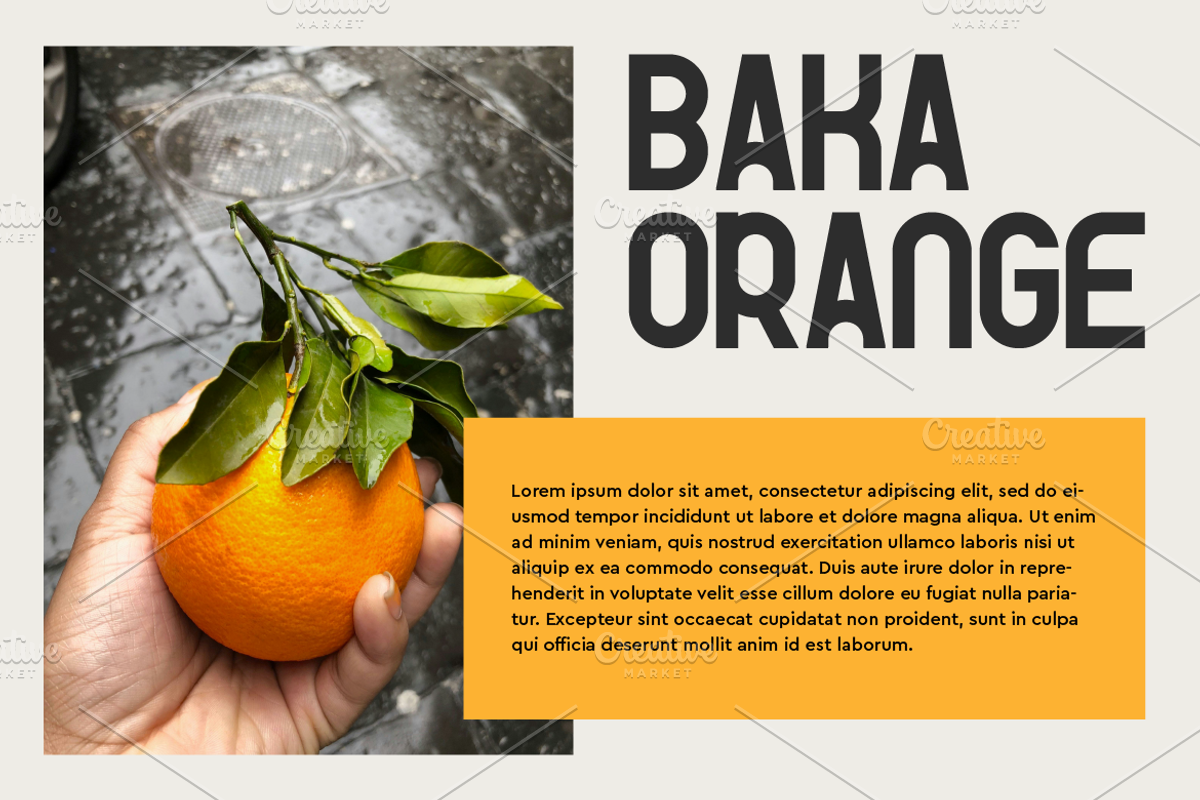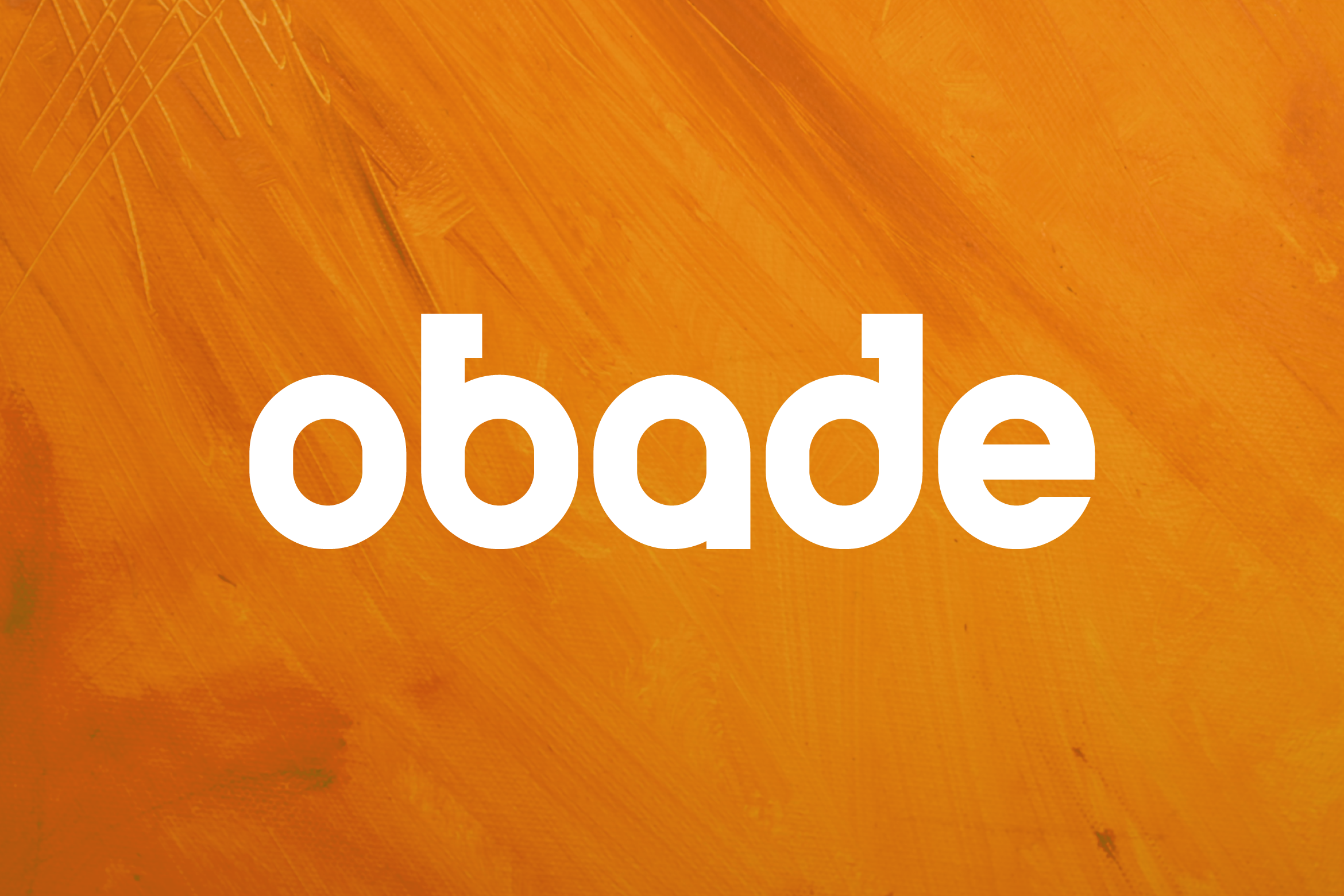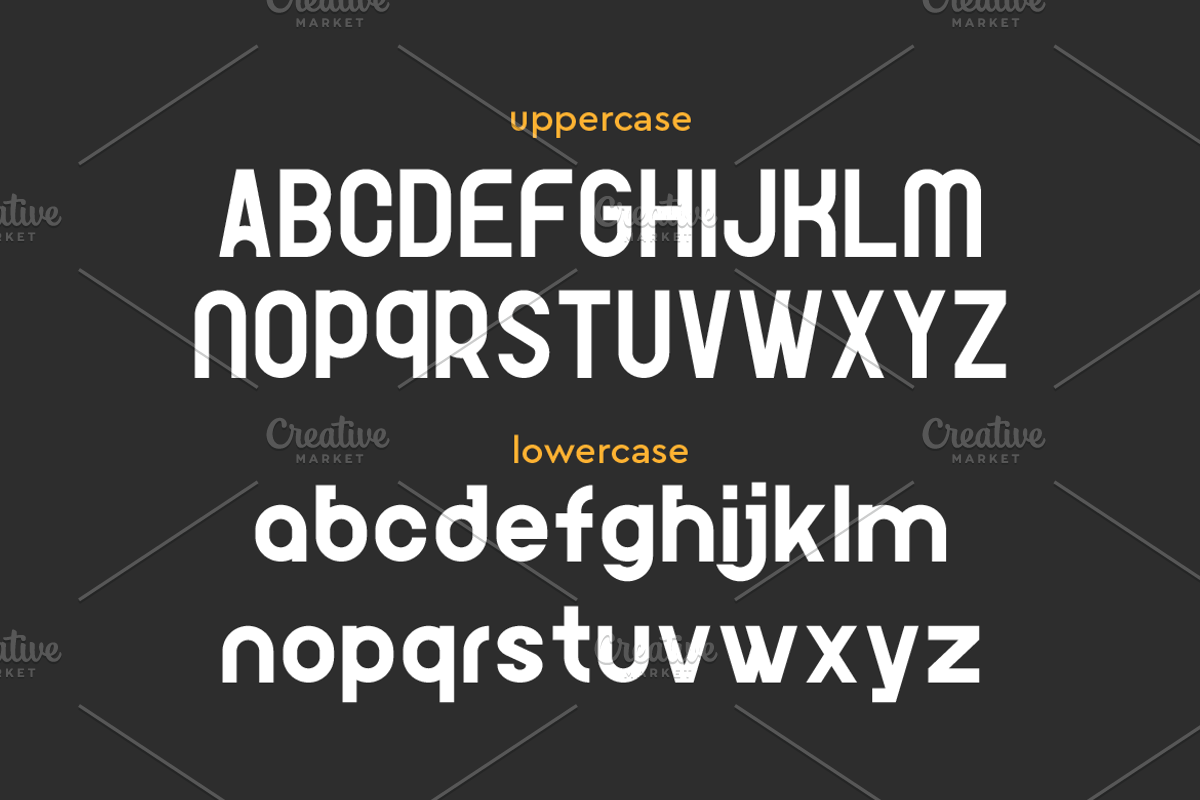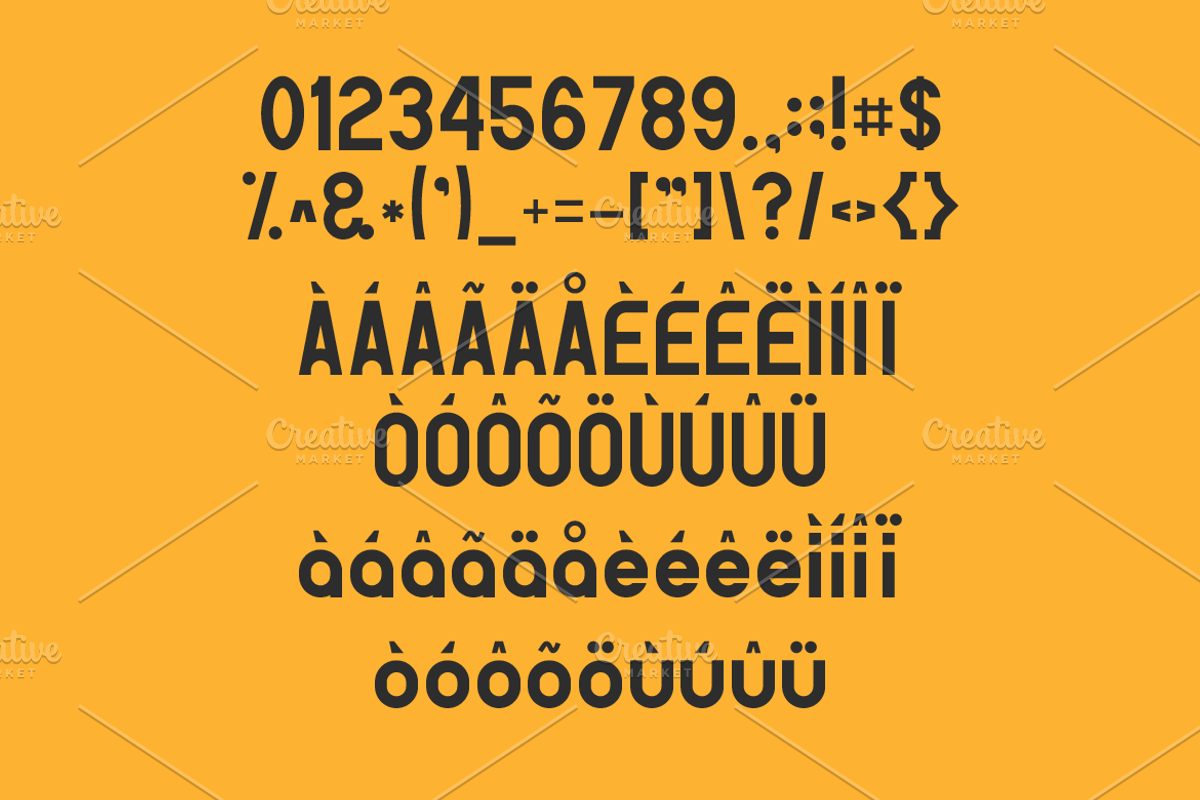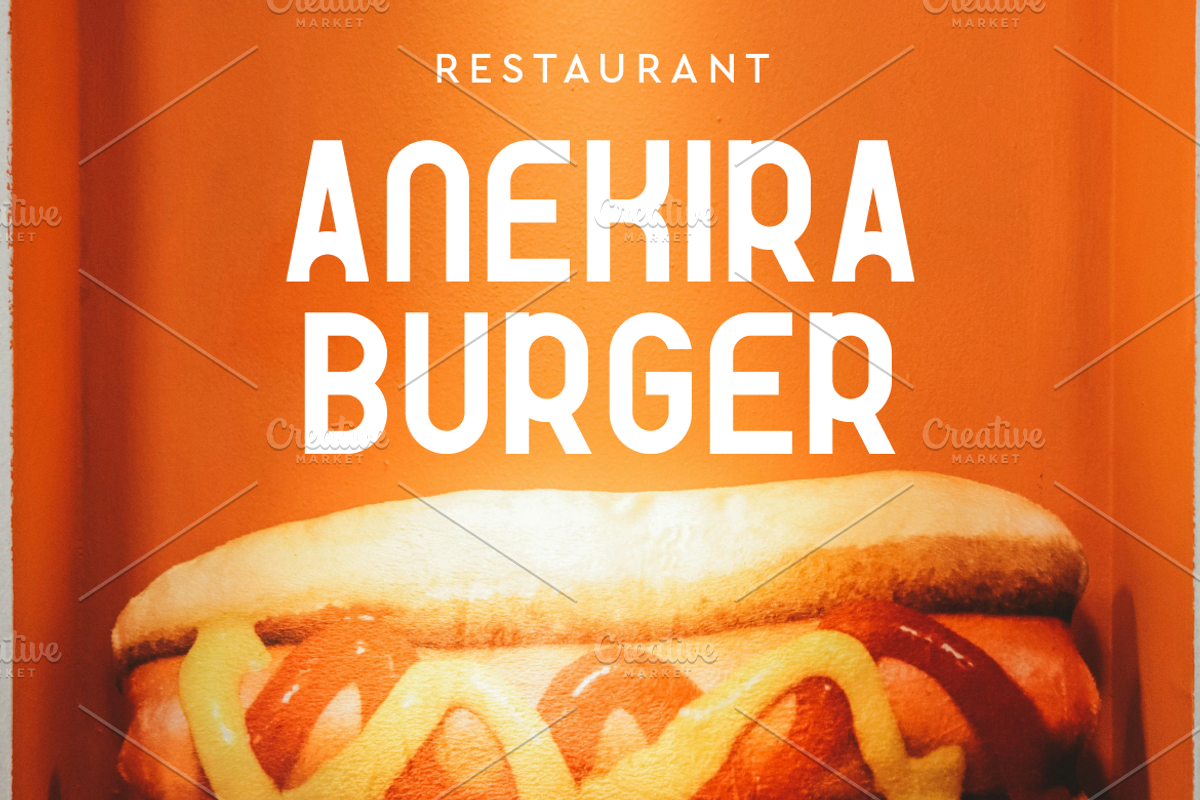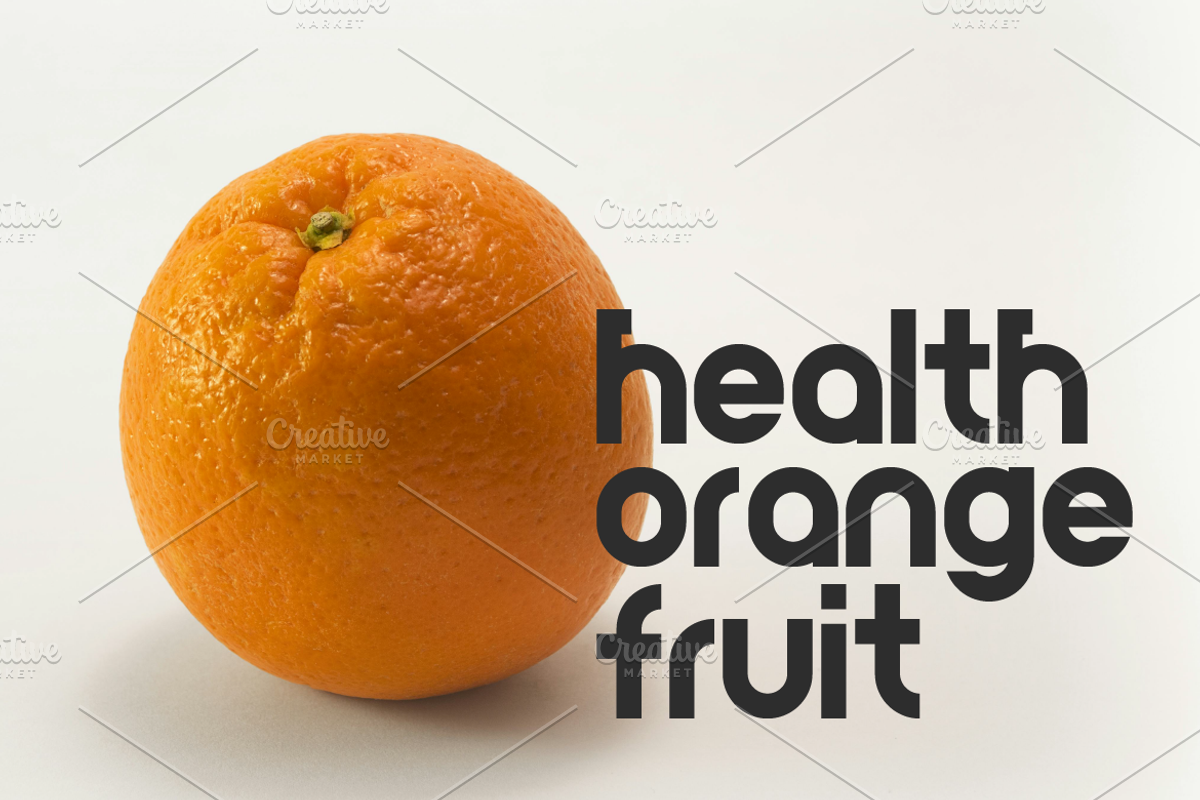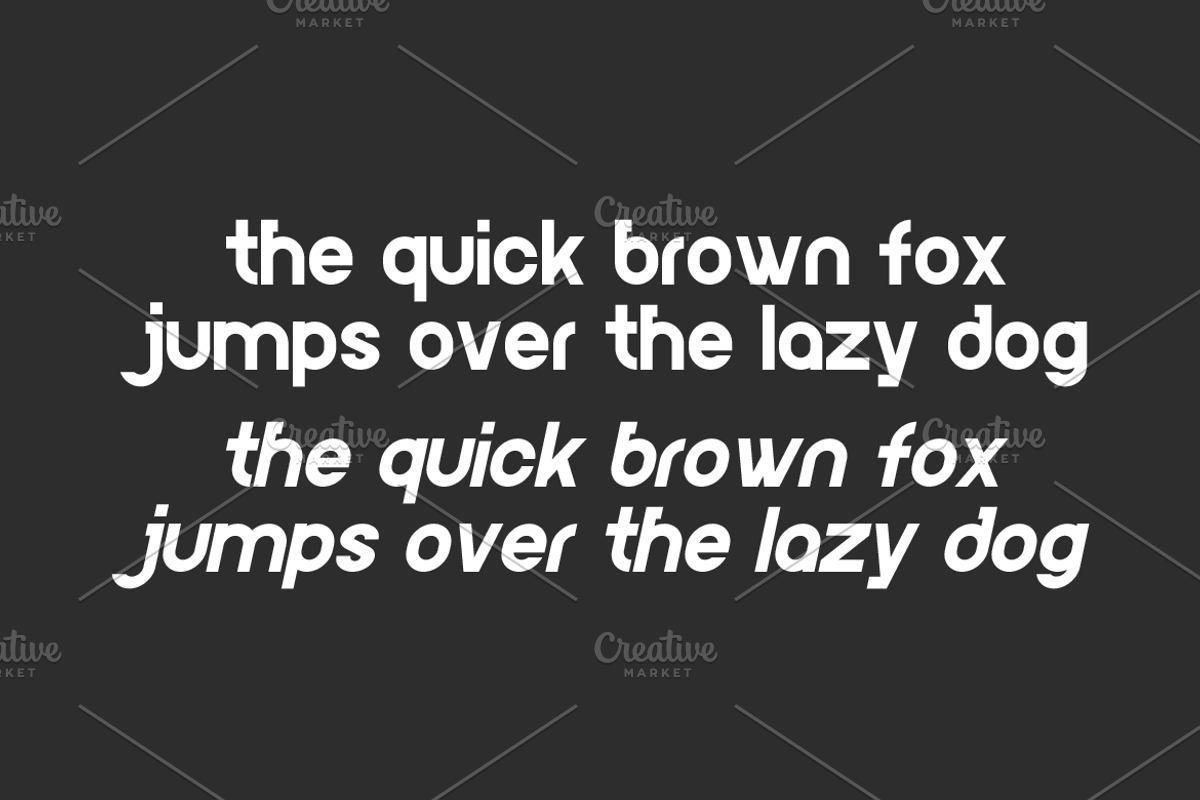
Obade Logo Font
Obade is a display logo font with a unique design, offering diverse uppercase and lowercase variations and multilingual support. Created by Iwan Alwan, this font stands out with its distinctive style, making it perfect for branding and creative projects that require a touch of originality and versatility.